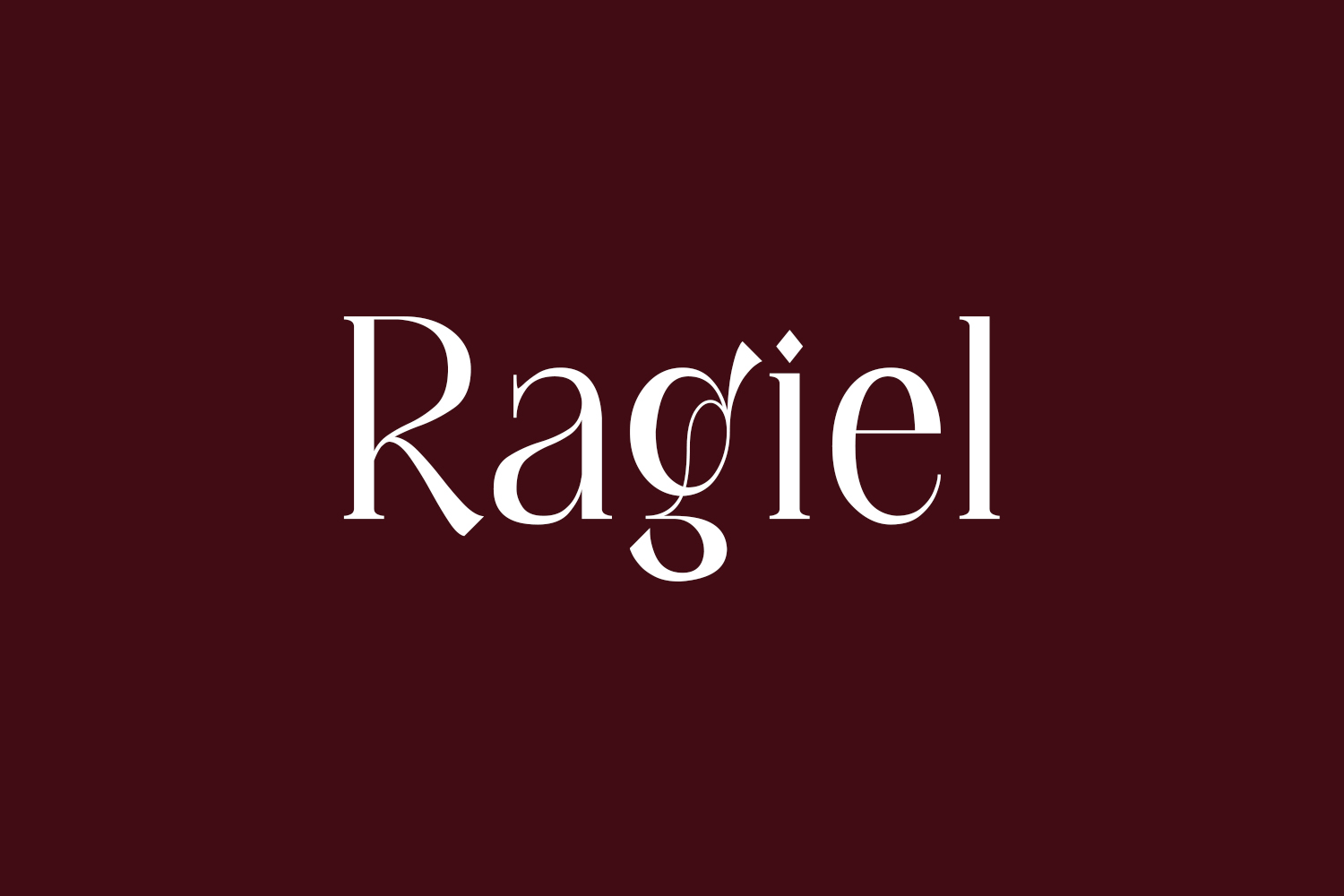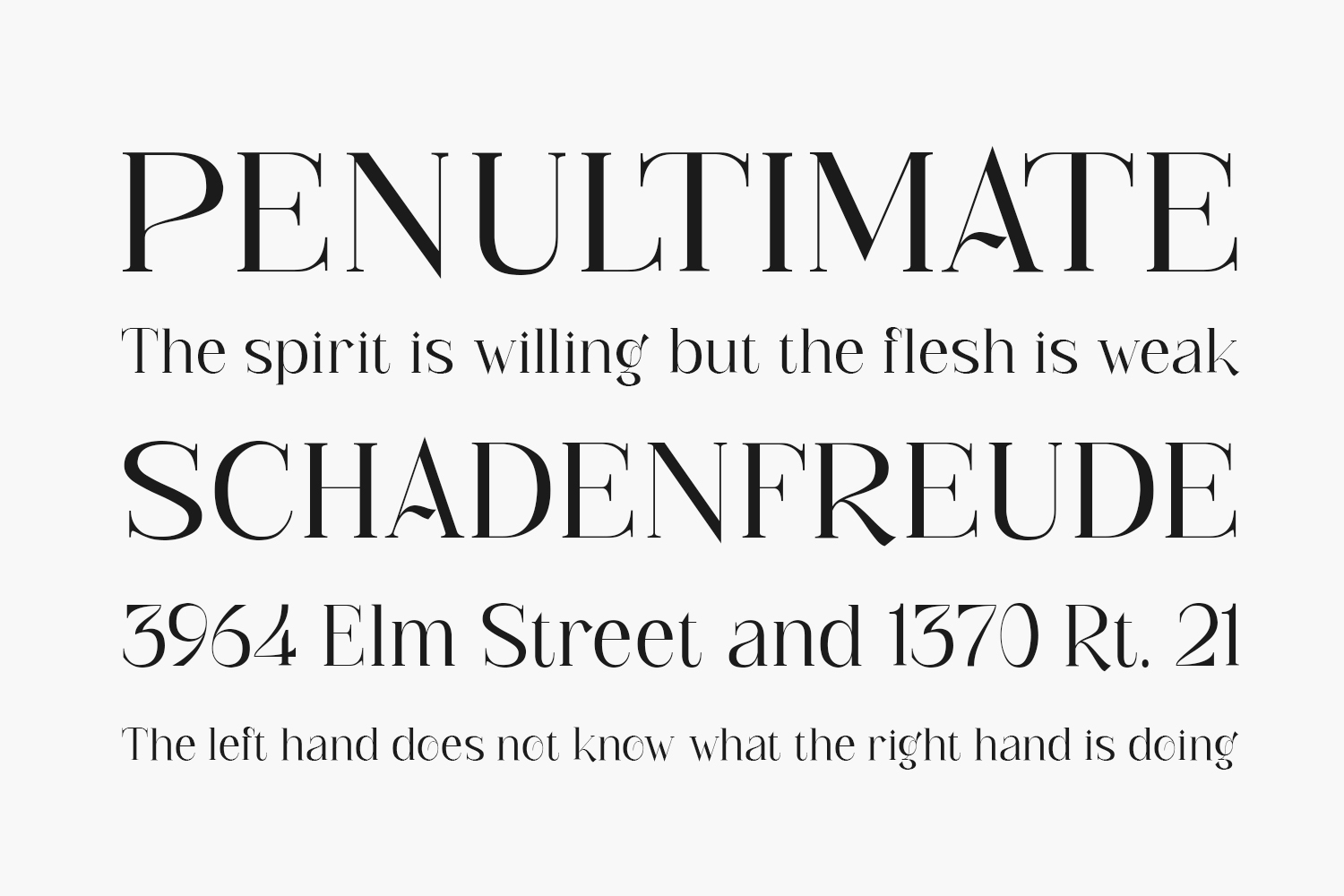
Ragiel Free Font Family is a classically elegant serif font that exudes timelessness and refinement. Its refined lines and delicate curves convey a sense of refinement, poise, and sophistication. The font’s serif design gives it a traditional and timeless look, making it perfect for any project that needs a touch of elegance and class. The font’s versatile design makes it suitable for any design project, from high-end luxury brands to traditional and conservative organizations. Whether you’re creating a website, a logo, or a print design, the Ragiel Free Font Family will add a touch of class and elegance to your work, making it look timeless and sophisticated.